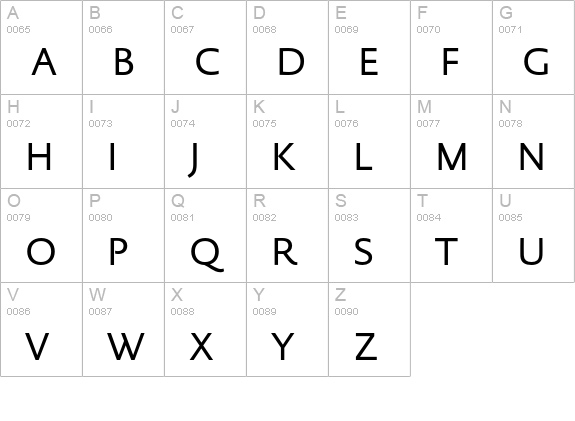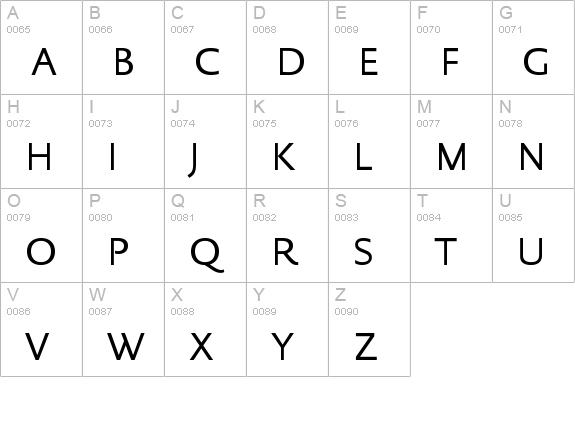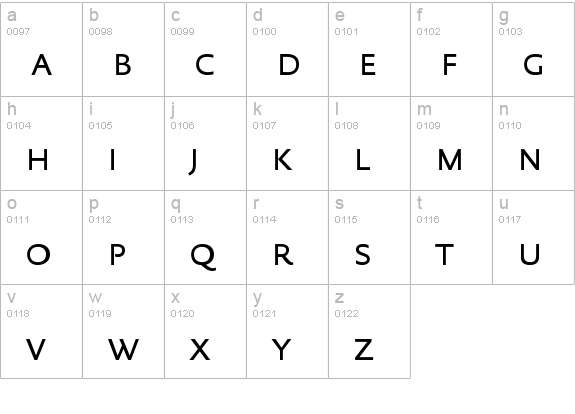
DTLDocumentaSansT-Caps Font Details
DTLDocumentaSansT-Caps font is a versatile and modern typeface that exudes elegance and sophistication. With its clean lines and bold design, this font is perfect for creating eye-catching headlines, logos, and branding materials. The all-caps style adds a touch of class and professionalism to any project. What makes DTLDocumentaSansT-Caps even more appealing is that it is available for free download at FontsMarket.com. This means you can easily access this high-quality font without any cost, making it a valuable addition to your font collection. Whether you're working on a print design, web project, or any other creative endeavor, DTLDocumentaSansT-Caps font will elevate your work to the next level. Download it for free today and unleash your creativity with this stunning typeface.